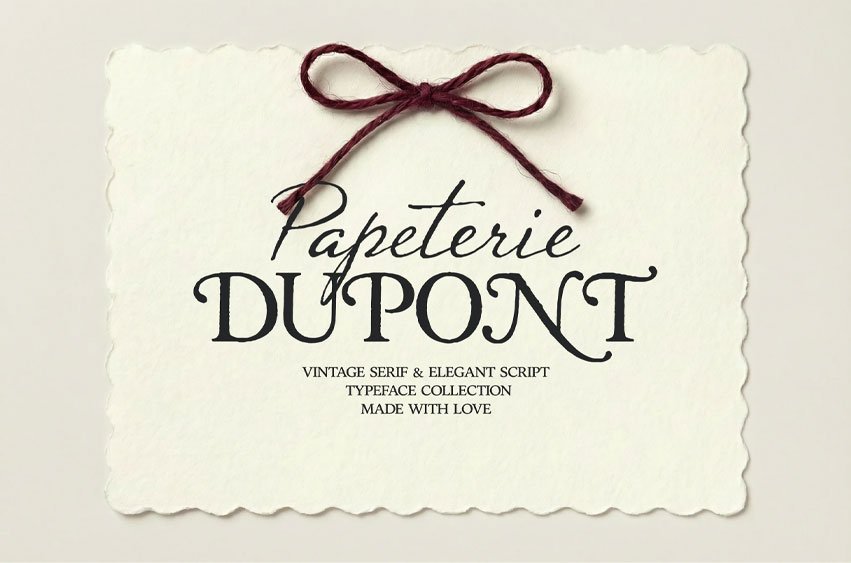
Papeterie Dupont Font
Papeterie Dupont Font is an elegant typeface pairing inspired by antique French stationery and handwritten correspondence. The set combines a sophisticated high-contrast serif with a natural calligraphic script, designed to work beautifully together or separately.
The serif brings structure and timeless charm, while the script adds warmth and personality — creating a balanced, luxurious look.